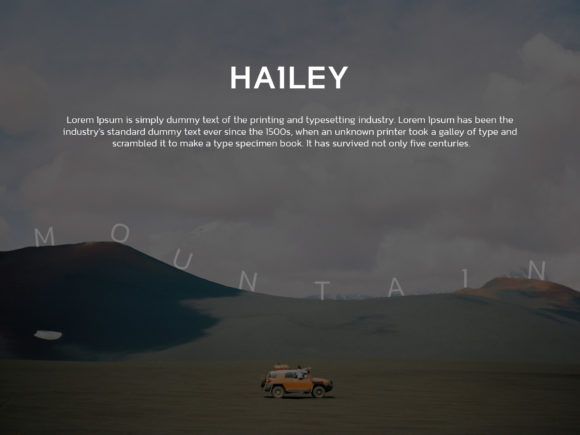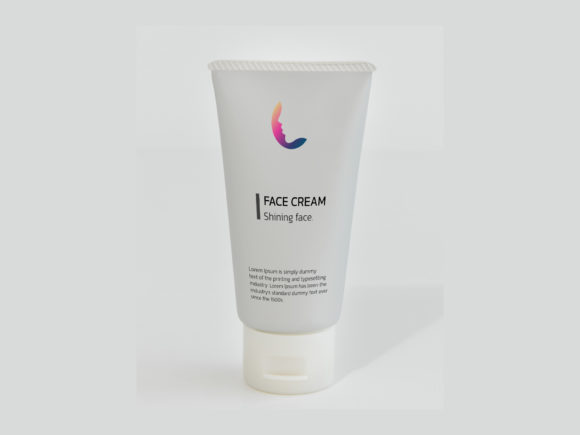
Hailey Font: A Modern Sans Serif Typeface for Impactful Designs
In the world of typography, a font can make all the difference in creating a lasting impression. Hailey font, a sans serif font set, has been making waves with its unique and memorable style. This typeface is designed to convey a sense of grandeur, making it perfect for headlines, big text, branding, logotypes, and display usage. In this article, we’ll dive into the features and benefits of Hailey font, and explore how it can elevate your designs.
What is Hailey Font?
Hailey font is a sans serif font family that boasts a clean and modern aesthetic. Its sleek lines and curves create a distinctive look that’s both elegant and attention-grabbing. This font is designed to be versatile, making it suitable for a wide range of applications, from digital displays to print materials.
Key Features of Hailey Font
- Easy to Read: Hailey font is optimized for readability, making it perfect for headlines, titles, and large text displays.
- Unique Typography Style: Hailey’s sans serif design gives it a distinctive look that sets it apart from other fonts.
- Versatile: This font can be used for a variety of applications, including branding, logotypes, display usage, and more.
- Attention-Grabbing: Hailey font is designed to grab attention, making it perfect for promotional content, marketing graphics, and logos.
Use Cases for Hailey Font
Hailey font is an excellent choice for designers and crafters looking to create impactful designs. Here are some use cases where Hailey font shines:
- Headlines and Titles: Use Hailey font to create bold and eye-catching headlines that grab attention.
- Branding and Logotypes: Hailey font is perfect for creating memorable logos and brand identities.
- Display Usage: Use Hailey font for display purposes, such as billboards, posters, and digital displays.
- Marketing Graphics: Create promotional content, such as brochures, flyers, and social media graphics, with Hailey font.
- Logo Design: Hailey font is an excellent choice for creating unique and memorable logos.
Benefits of Using Hailey Font
Using Hailey font in your designs offers several benefits:
- Improved Readability: Hailey font is optimized for readability, ensuring that your message gets across clearly.
- Increased Impact: Hailey font’s unique design makes it perfect for creating attention-grabbing designs.
- Versatility: Hailey font can be used for a wide range of applications, making it a valuable addition to your font library.
- Professional Look: Hailey font’s modern design gives your designs a professional and sleek look.
Tips for Using Hailey Font Effectively
To get the most out of Hailey font, follow these tips:
- Use it for Headlines: Hailey font is perfect for headlines and titles, so use it to create bold and eye-catching text.
- Experiment with Sizes: Hailey font looks great in various sizes, so experiment with different sizes to find the one that works best for your design.
- Pair it with Other Fonts: Hailey font can be paired with other fonts to create a unique and memorable design.
- Use it for Digital Displays: Hailey font is optimized for digital displays, making it perfect for website headers, social media graphics, and more.
Hailey font is a powerful tool for designers and crafters looking to create impactful designs. Its unique sans serif design, ease of readability, and versatility make it perfect for a wide range of applications. By using Hailey font, you can create attention-grabbing designs that leave a lasting impression. Whether you’re creating headlines, logos, or marketing graphics, Hailey font is an excellent choice.